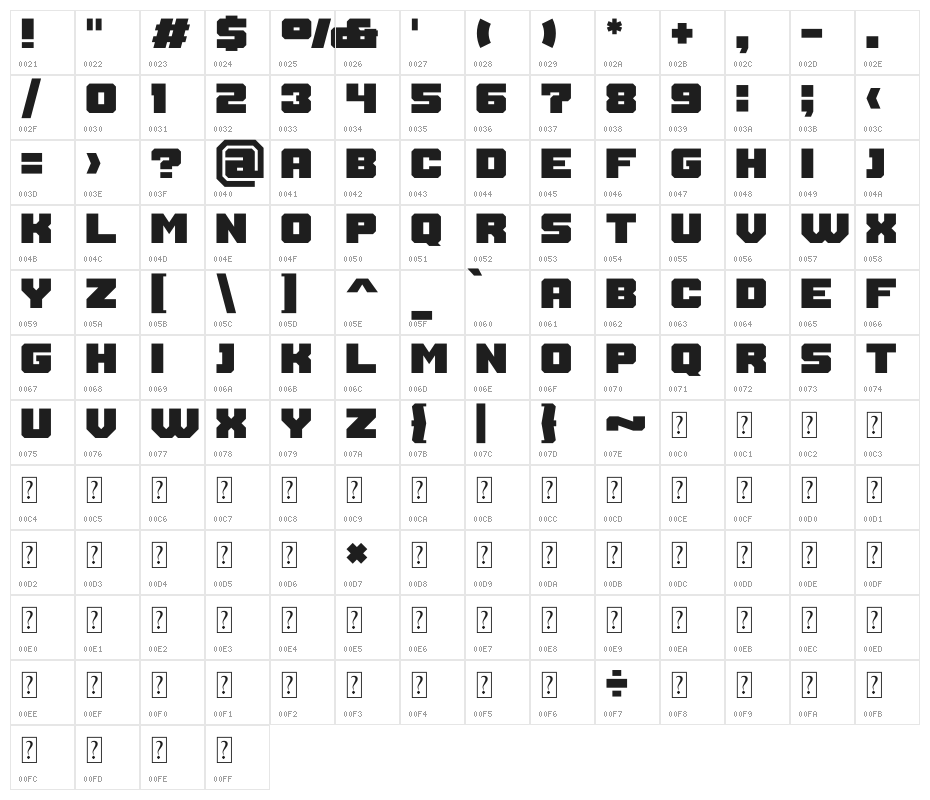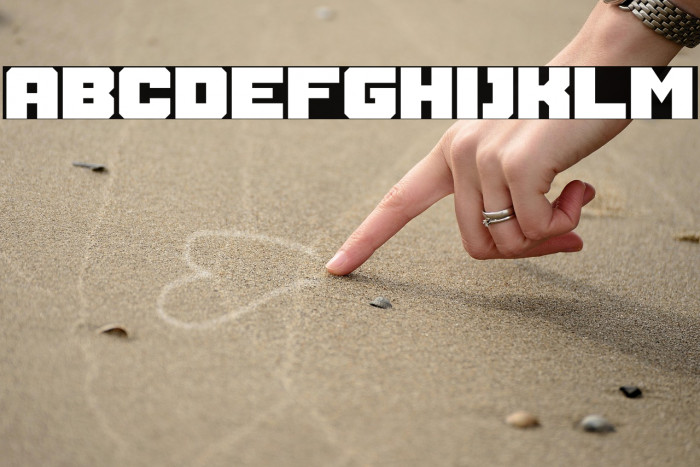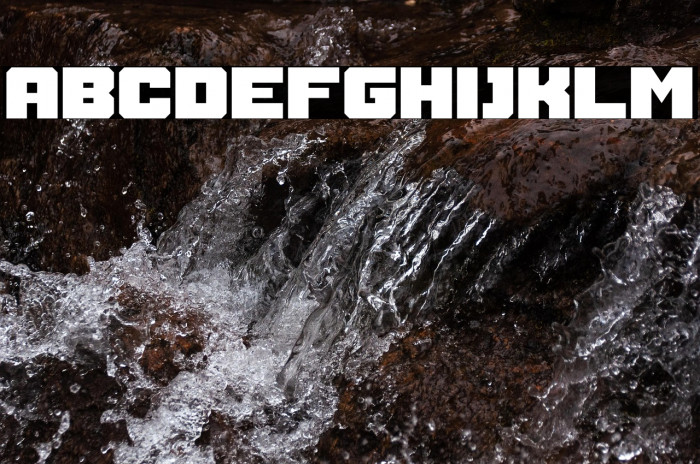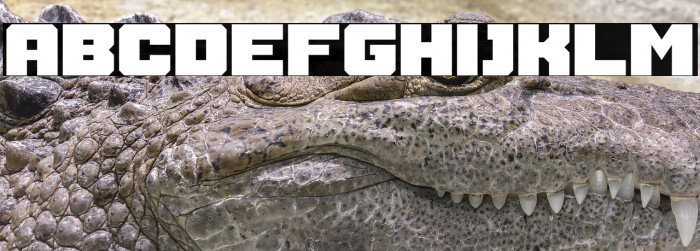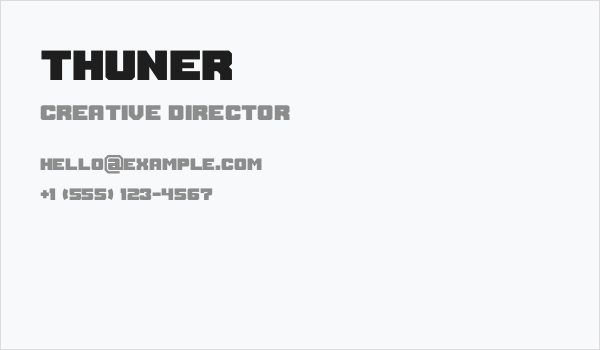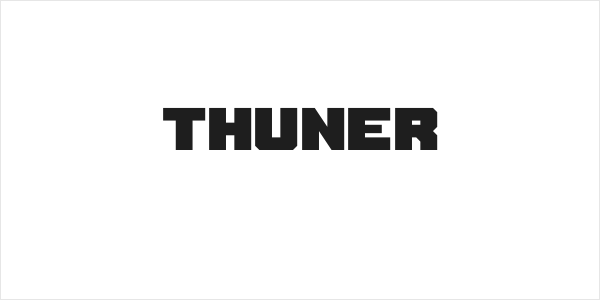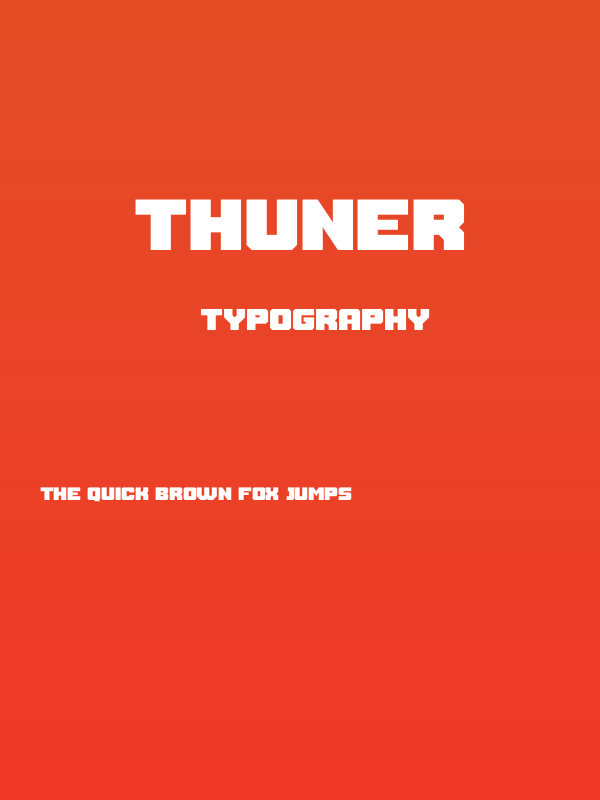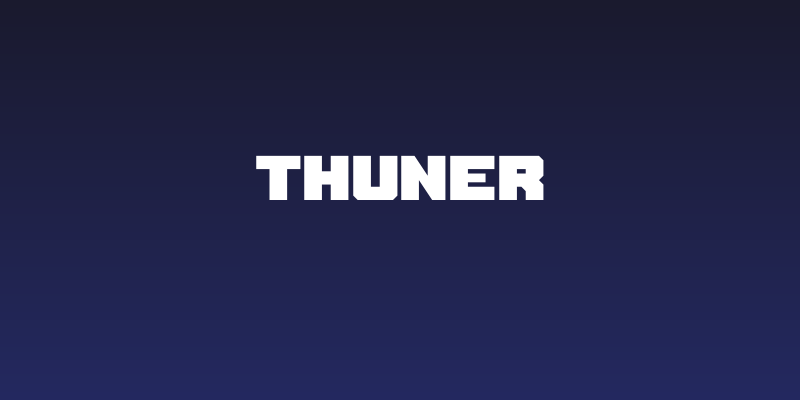
Thuner Font
Thuner Description
This font features a bold, geometric style with strong, angular lines and a solid presence. The characters are blocky and robust, creating a sense of strength and impact. The uppercase letters are uniform in height, while the lowercase letters maintain a consistent weight, contributing to a cohesive look. The numbers are equally bold, matching the style of the letters. Special characters are designed to fit seamlessly with the overall aesthetic, maintaining the same boldness and angularity. This font is ideal for projects that require a strong visual statement.
| Proposed Projects | Ideal for branding, posters, headlines, and any design requiring a strong visual impact. |